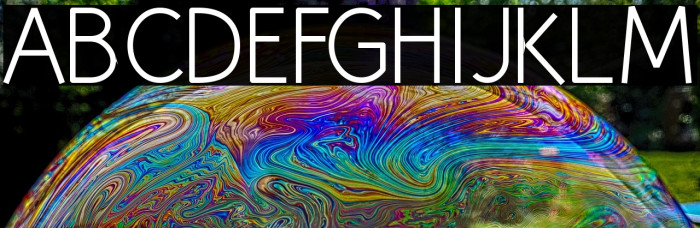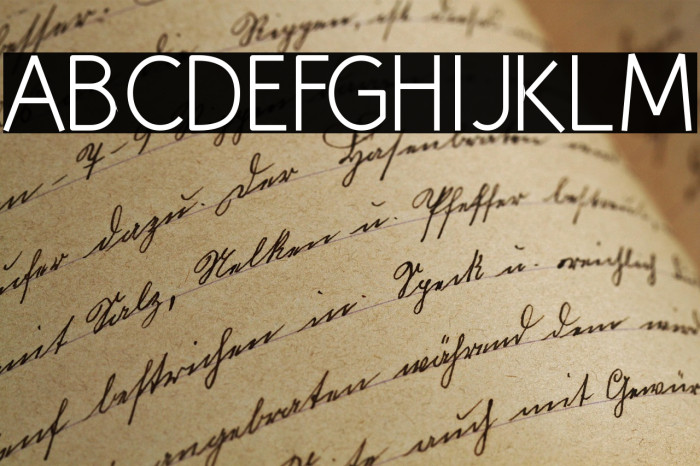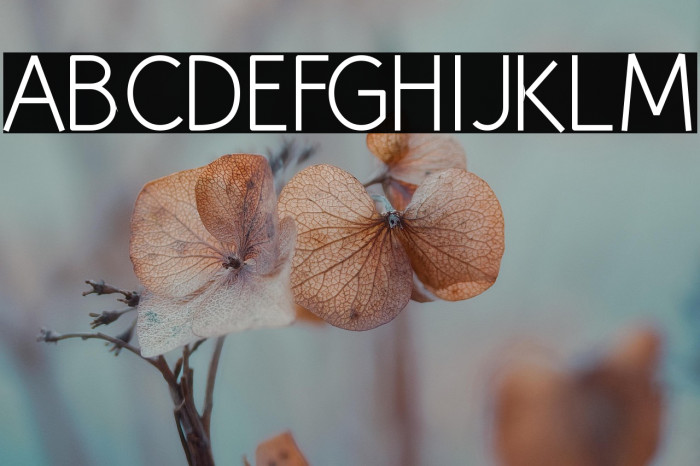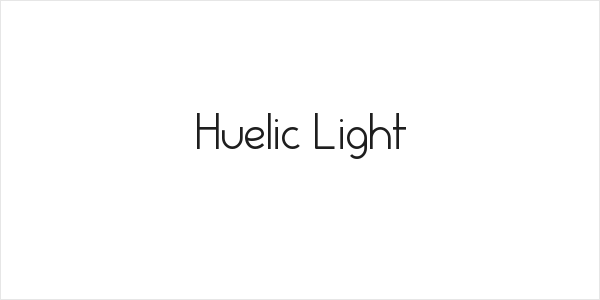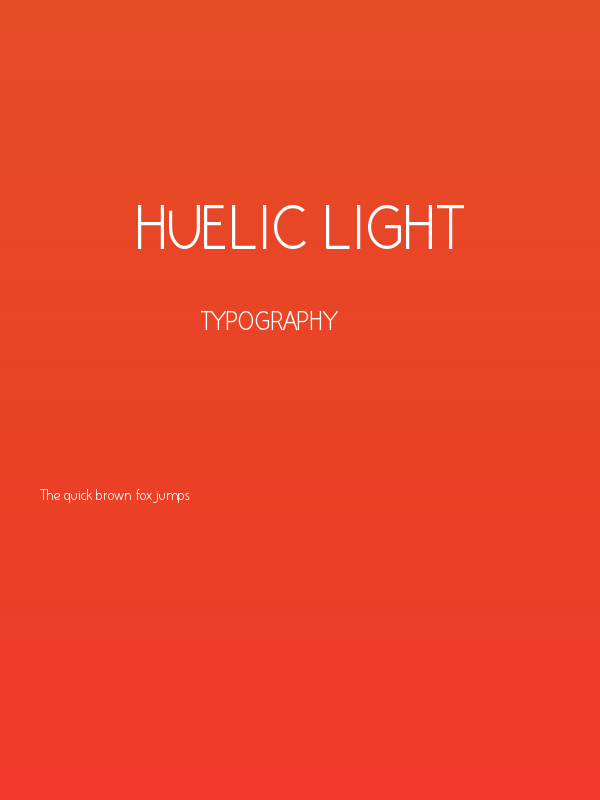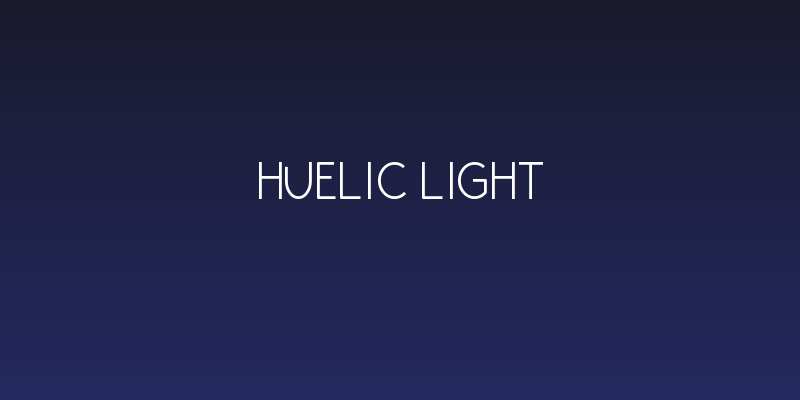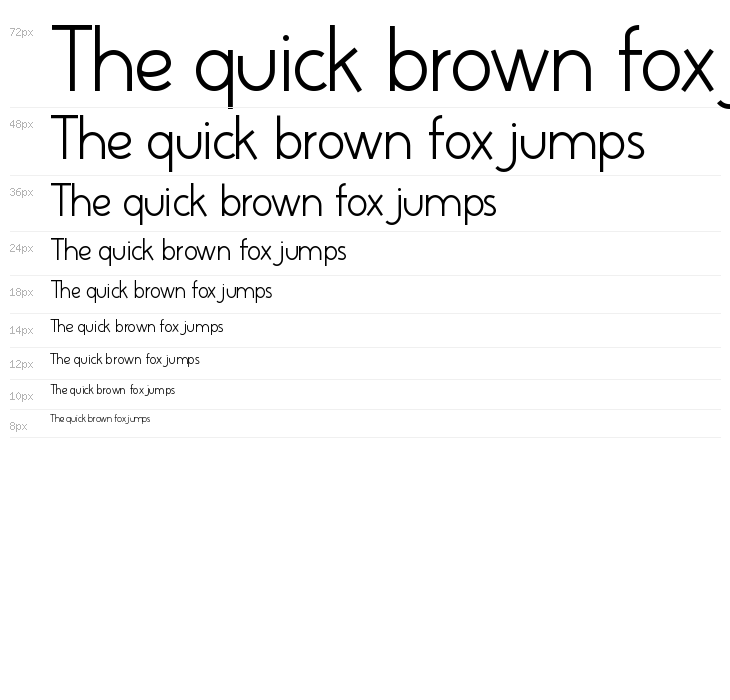
Huelic Light Font
Huelic Light Description
This font features a clean and modern sans-serif design with a light weight, offering a sleek and minimalist aesthetic. The characters are well-proportioned with a consistent stroke width, providing a harmonious and balanced appearance. The uppercase letters are tall and elegant, while the lowercase letters maintain a smooth and rounded form. The numerals are clear and easy to read, complementing the overall style. Special characters are included, maintaining the font's cohesive look. This font is versatile, suitable for various design applications.